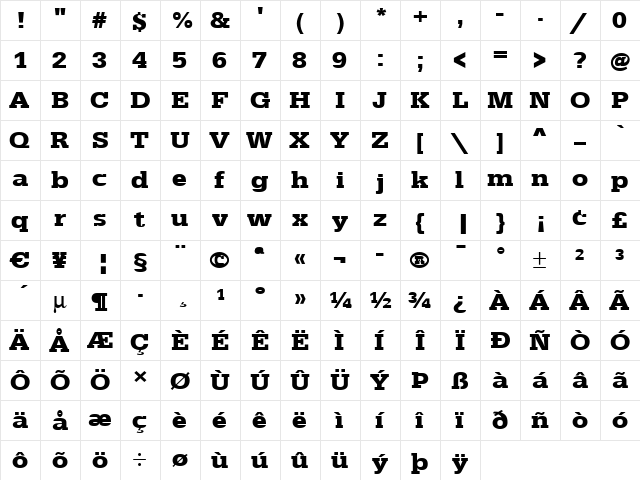
AnitaBeckerExtended Bold
Design Context for AnitaBeckerExtended Typeface
AnitaBeckerExtended offers clean, dependable letterforms without strong stylistic allegiance, making it a practical choice for designers who need flexibility. The heavy weight commands attention and anchors typographic hierarchies.